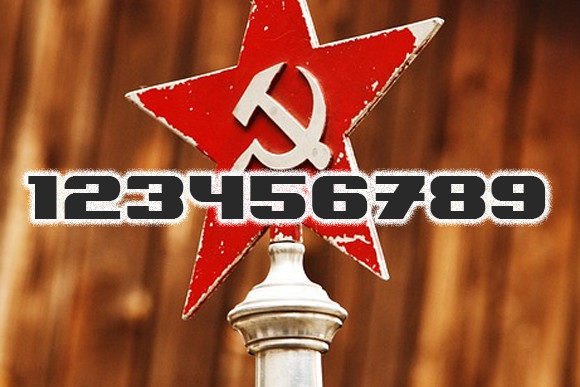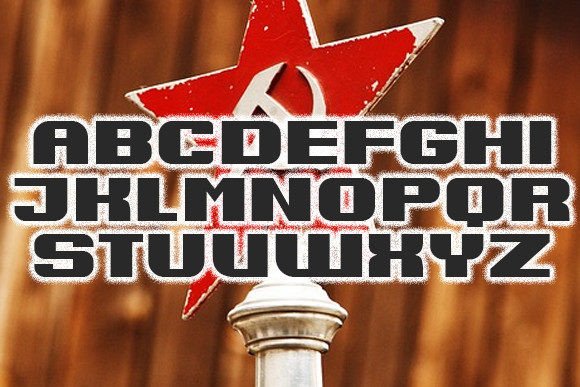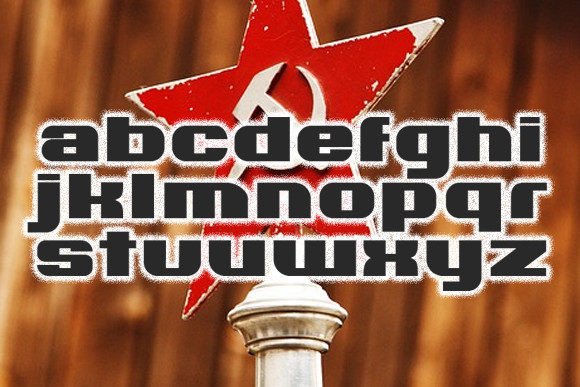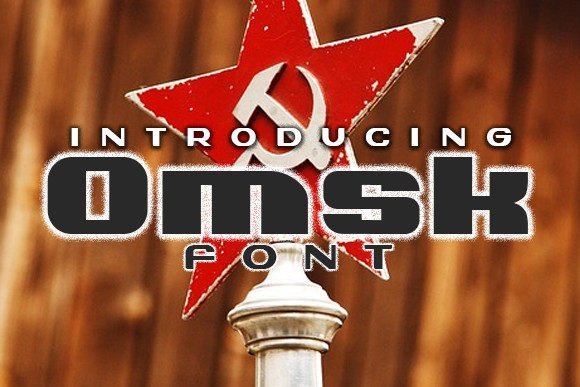
Introduction to Omsk Font
Omsk is a bold and rugged masculine display font that exudes strength and power.
Its strong and angular characters have a robust and sturdy appearance, with thick lines and sharp corners that convey a sense of toughness and resilience This font is perfect for creating impactful headlines, logos, and branding, as it is designed to make a strong and lasting impression.
Key Features of Omsk Font
Why Choose Omsk Font?
Omsk Font offers exceptional quality and versatility, making it a valuable addition to your design toolkit. Whether you’re creating for personal projects or commercial use, Omsk Font delivers professional results.